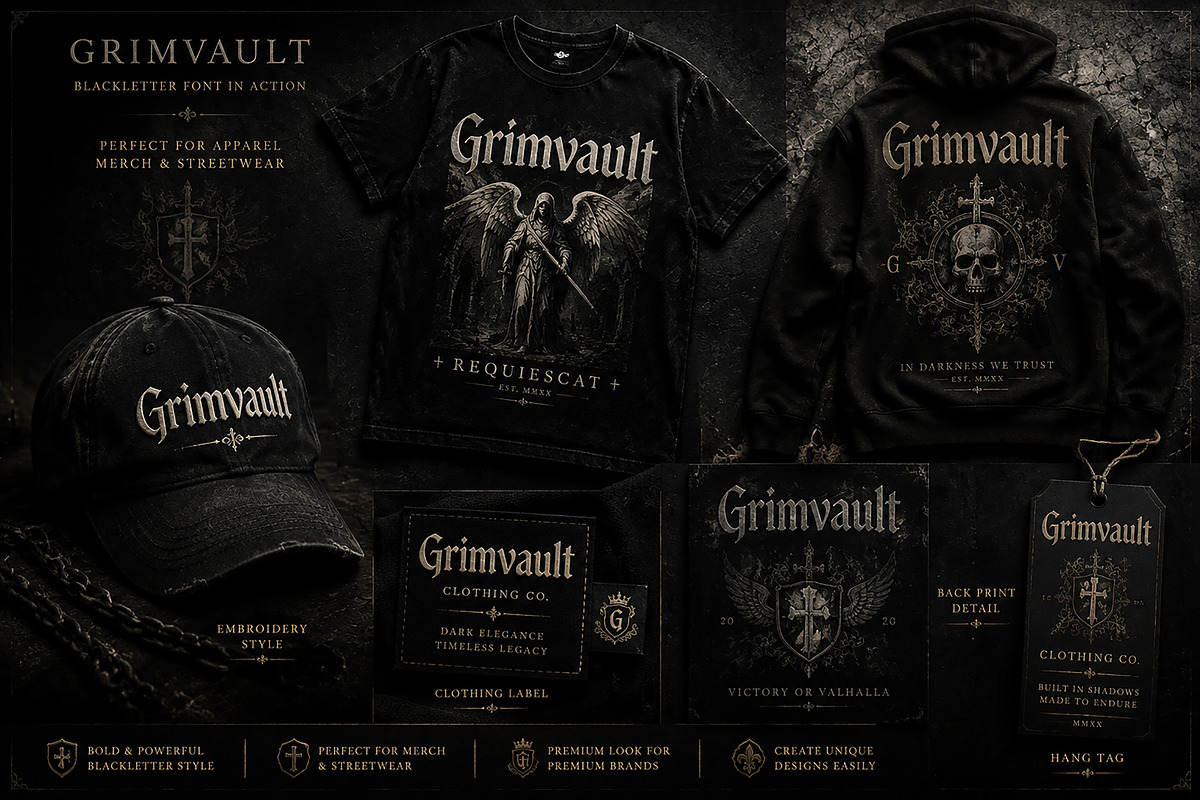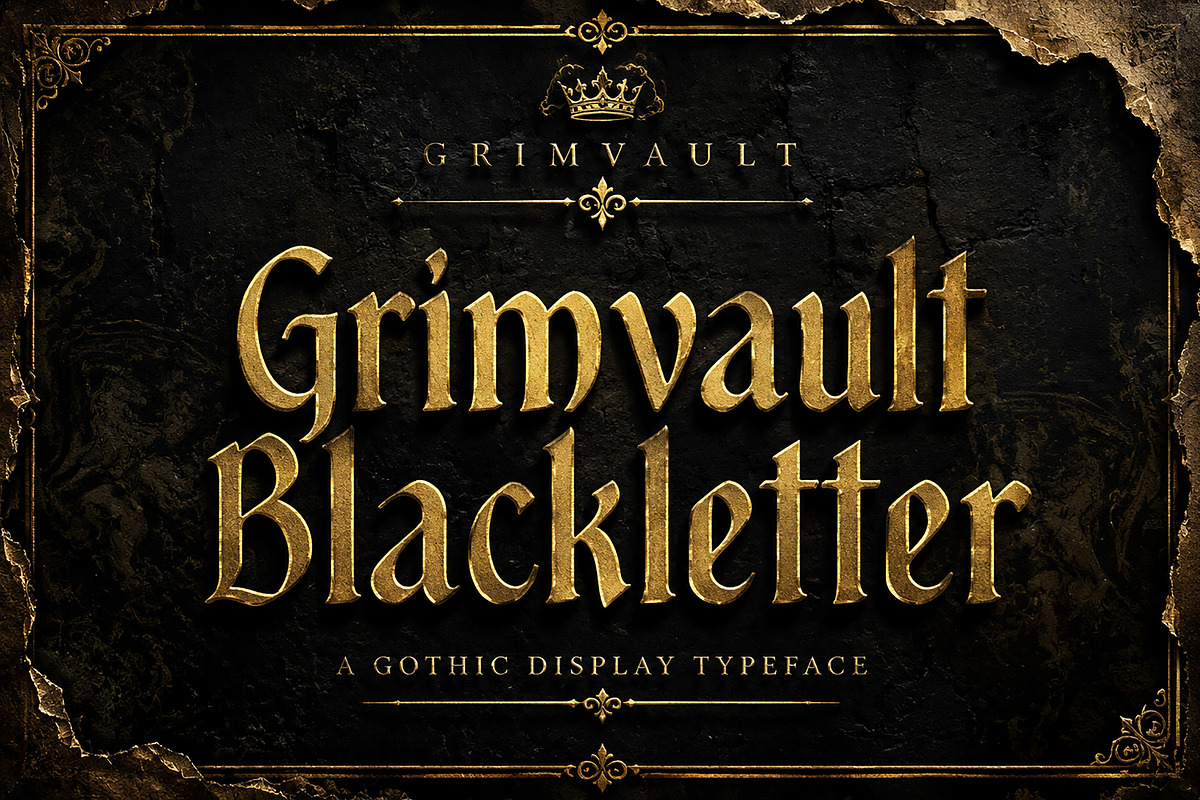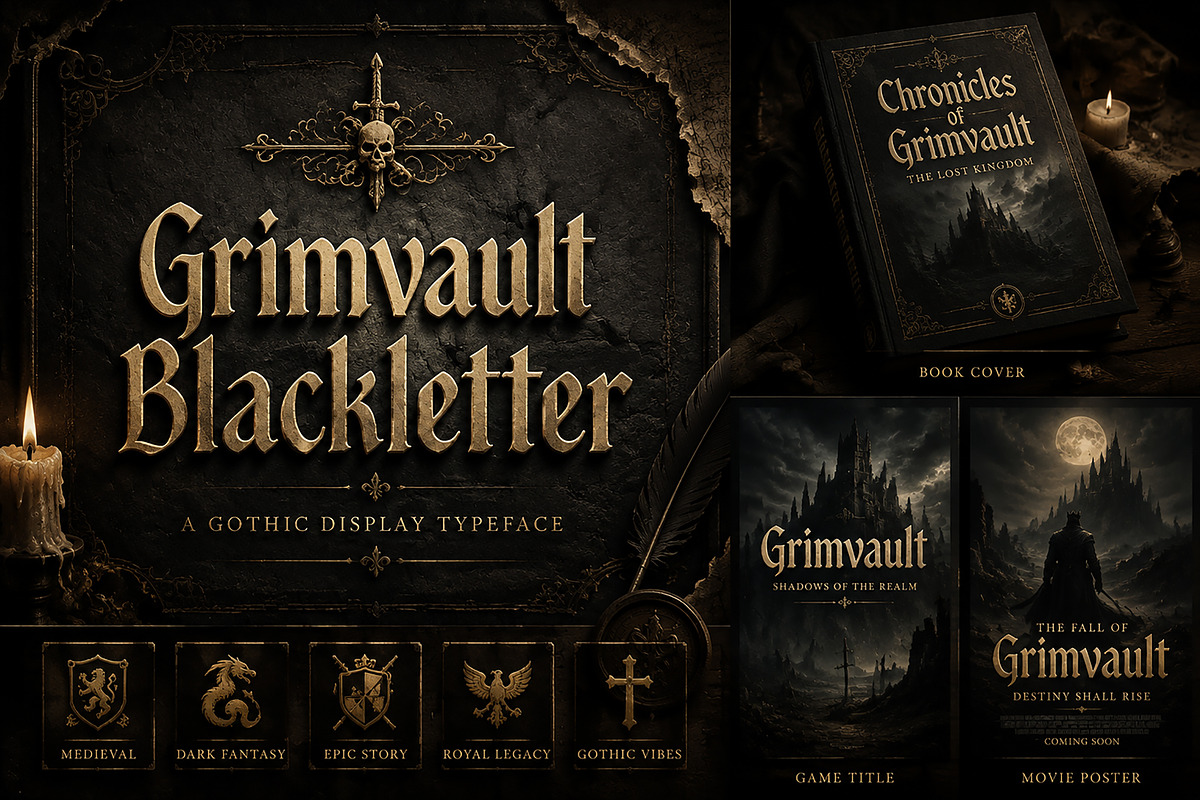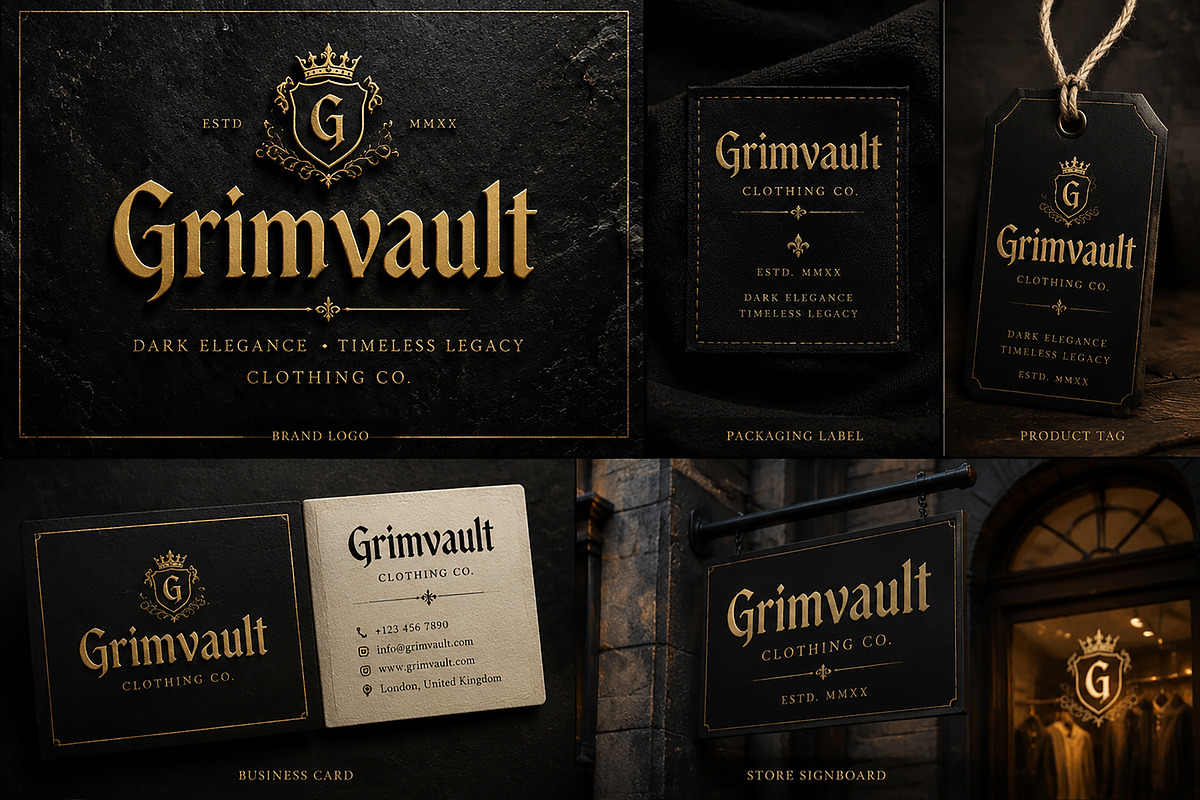
Grimvault Blackletter
Grimvault Blackletter – Gothic Display Font
Grimvault Blackletter is a bold and elegant gothic display typeface inspired by medieval manuscripts, dark fantasy aesthetics, and classic blackletter typography. Designed with sharp details, dramatic curves, and a powerful vintage character, this font brings a premium historical feel to any creative project.
Perfect for luxury branding, gothic logos, apparel design, tattoo artwork, book covers, movie titles, game designs, posters, labels, and fantasy-themed projects.
With its strong visual identity and timeless medieval style, Grimvault Blackletter helps designers create memorable designs with a dark, royal, and sophisticated atmosphere.
✔ Gothic Blackletter Display Typeface
✔ Strong medieval and vintage character
✔ Perfect for luxury & dark-themed designs
✔ Suitable for logos, branding, apparel, and merchandise
✔ Great for posters, book covers, packaging, and titles
✔ High-quality professional font design
Luxury Brand Logos
Gothic Fashion & Streetwear
T-Shirt & Merchandise Design
Tattoo Designs
Album Covers
Book & Magazine Covers
Movie & Game Titles
Fantasy Artwork
Vintage Labels
Posters & Invitations
Create powerful, mysterious, and unforgettable designs with Grimvault Blackletter — a timeless gothic typeface built for bold creative projects.